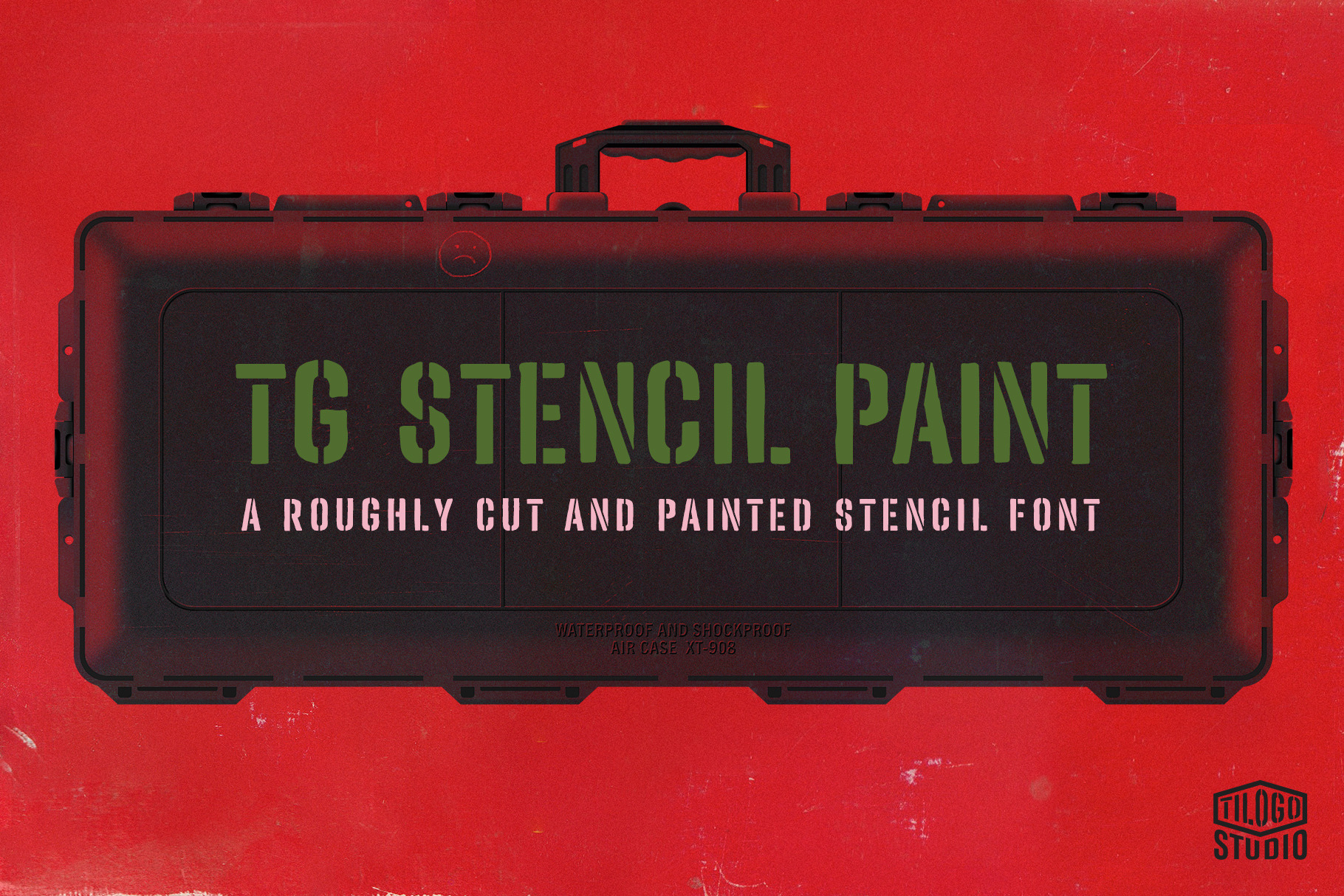
TG Stencil Paint - Display Font
TG Stencil Paint is a roughly cut and painted stencil font. The font is inspired by the labeling for military storage cases.